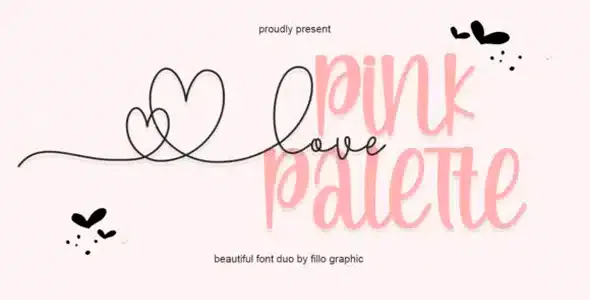
Love Pink Pallet Premium Font
Love Pink Pallet consists of two fonts designed to complement each other perfectly. Together or separately, these fonts are ideal for adding an elegant and playful touch to your crafts. Love Pink Pallet is PUA-encoded, which means you can access all the glyphs and swashes with ease!